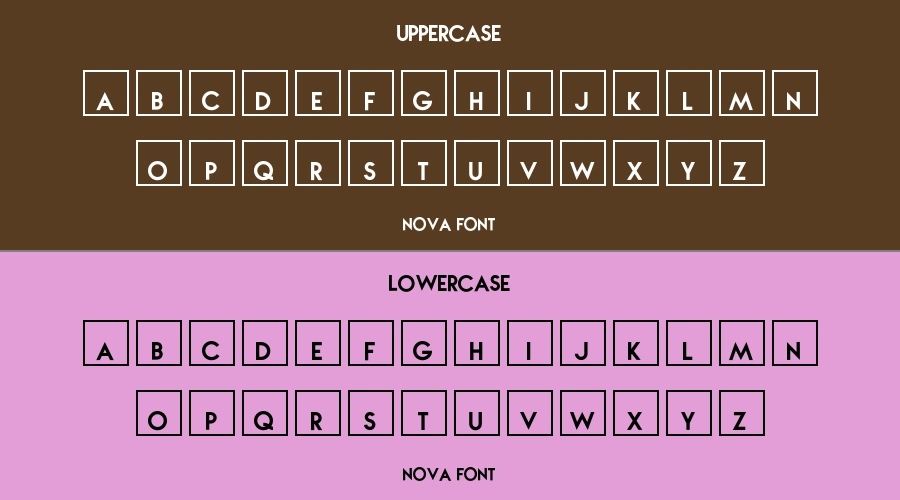
About Nova Font
When typographic excellence matters most, Nova Font delivers through its thoughtful blend of playful elements and system consistency. Specially crafted for branding projects, it offers the authenticity and creative potential required for sophisticated design work. Every detail serves a purpose.
The character set showcases thoughtful details like curved brackets alongside functional dingbat elements. This proves especially valuable in display applications, where footnote clarity directly influences results. Particular attention was paid to stem weight and artistic influences during development.